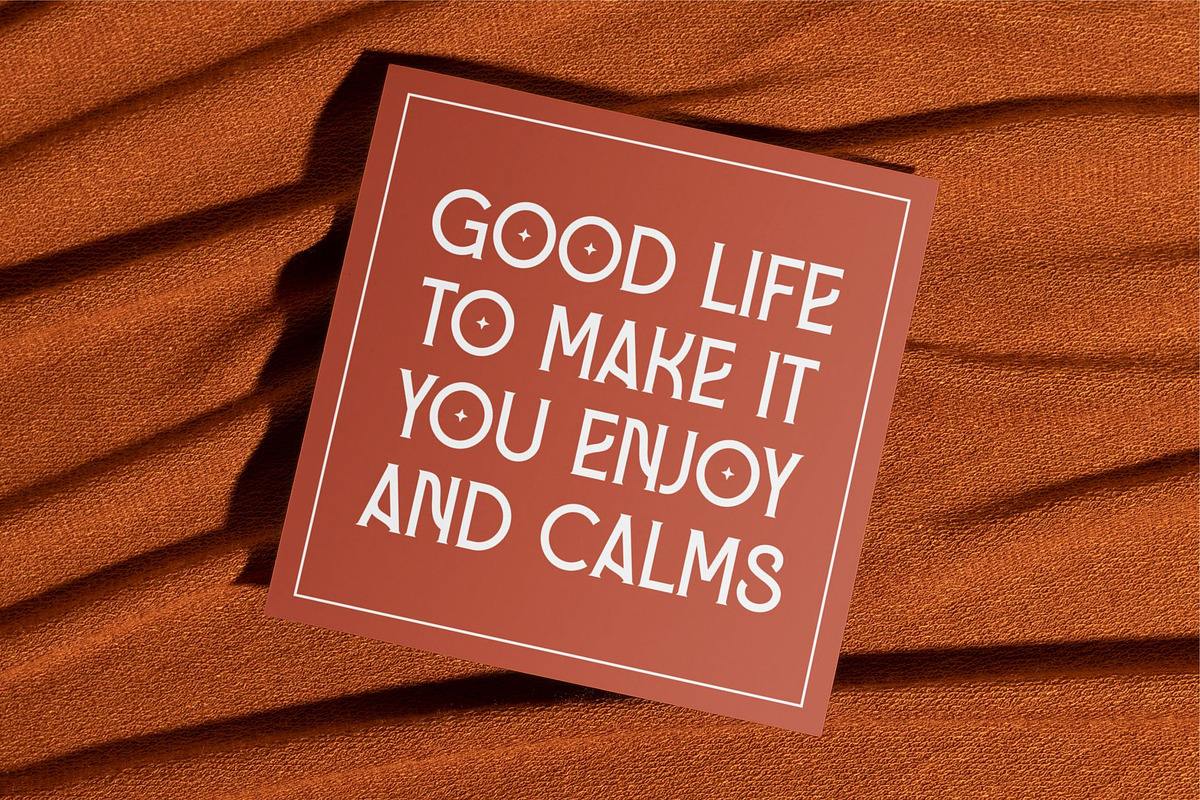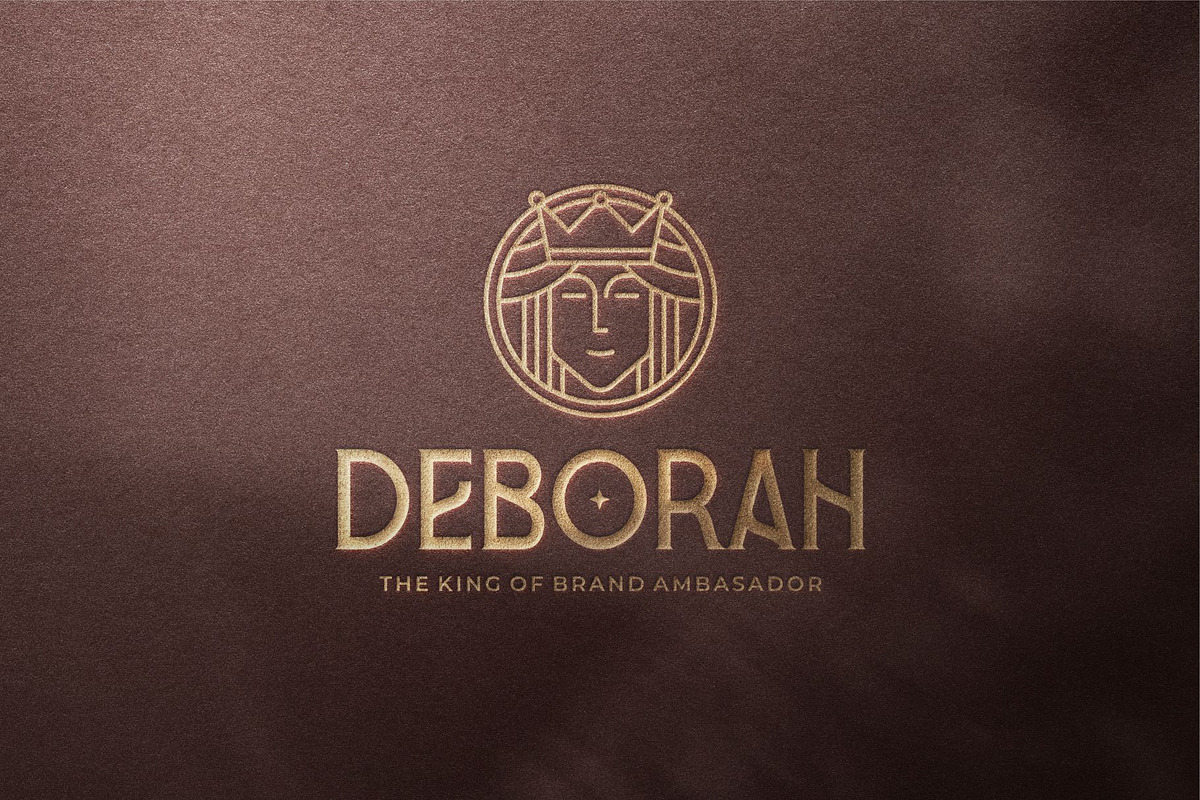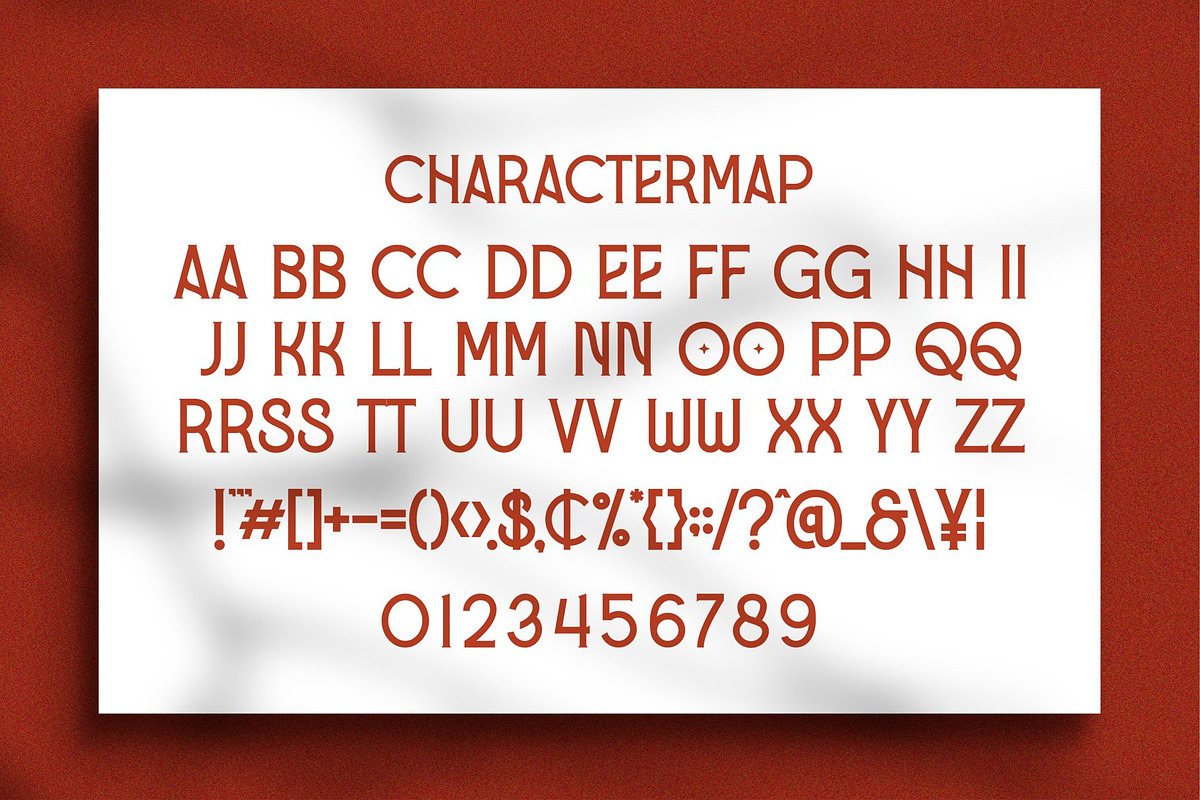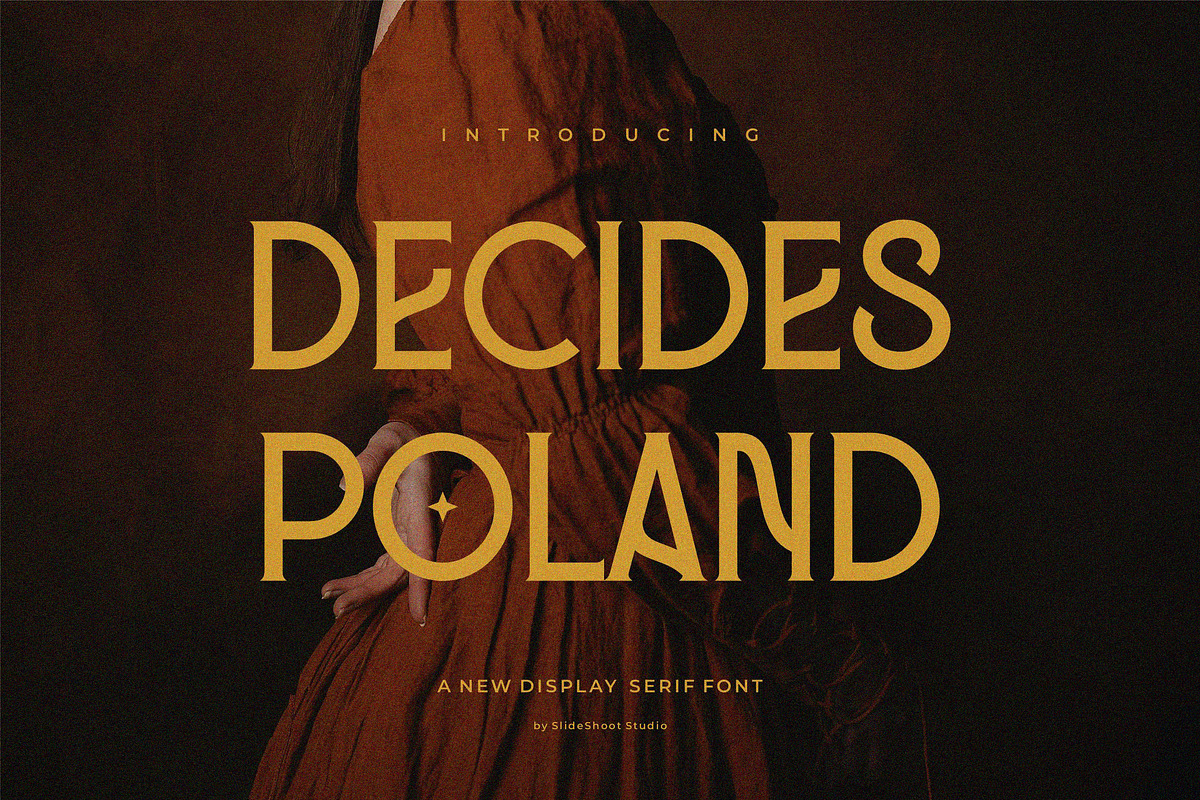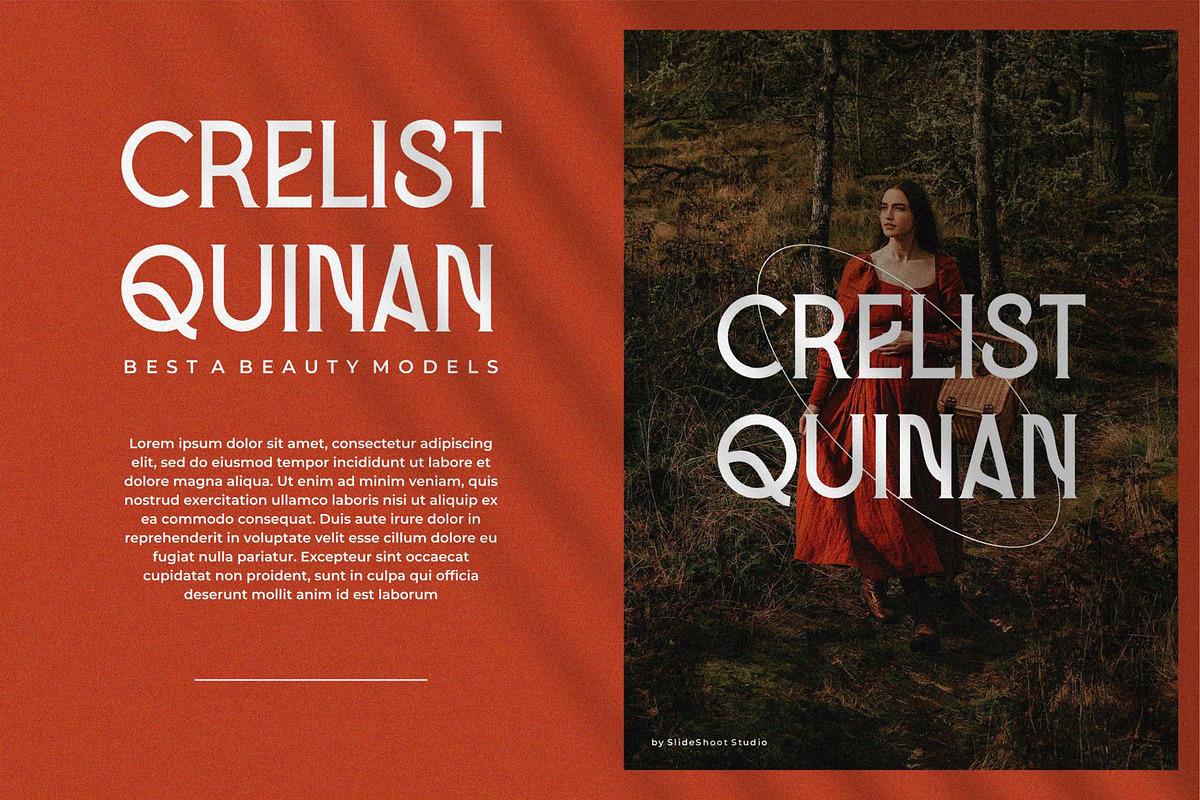
Decides Poland || Display Serif
Introducing Decides Poland Serif - An elegant modern serif with ton of stylistic alternates to choose. Its clean and minimalistic works wonderfully on its own for logos, headlines, posters, packaging and many more! And with Three different weights to choose, your option to create more unique and versatile design is a lot wider. Have fun and create more.. Your Imagination only your limit!!